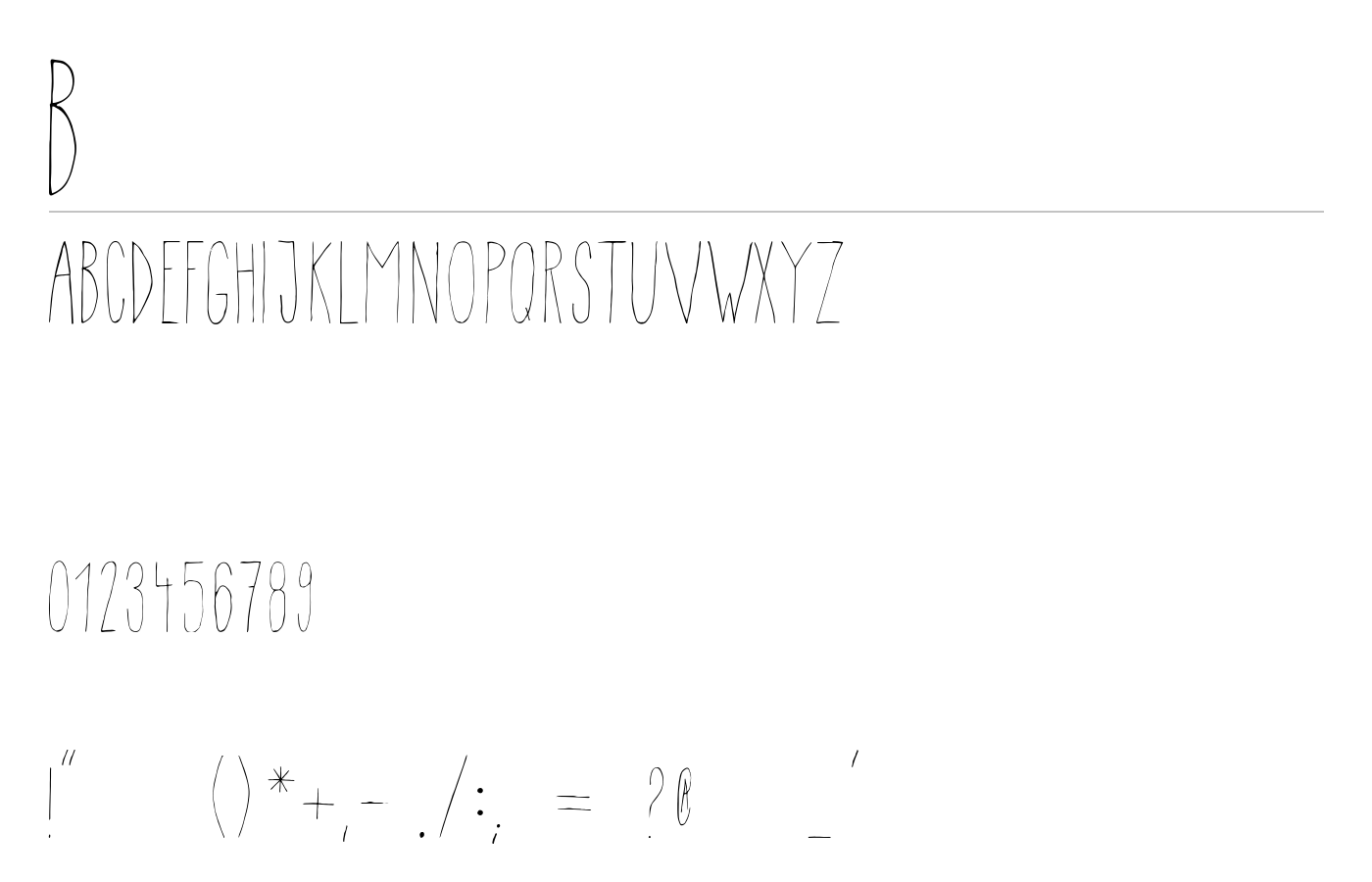
Brickle Font is a whimsical, ultra-thin sans serif with a quirky, hand-drawn feel characterized by its tall, narrow letterforms and delicate strokes. Its light weight and uneven lines give it a playful, informal personality, making it ideal for creative projects, casual invitations, and artistic branding that seek a unique and approachable touch. This font works best in headlines or decorative uses where its distinctive style can stand out without sacrificing readability.
Brickle Font
About Brickle Font